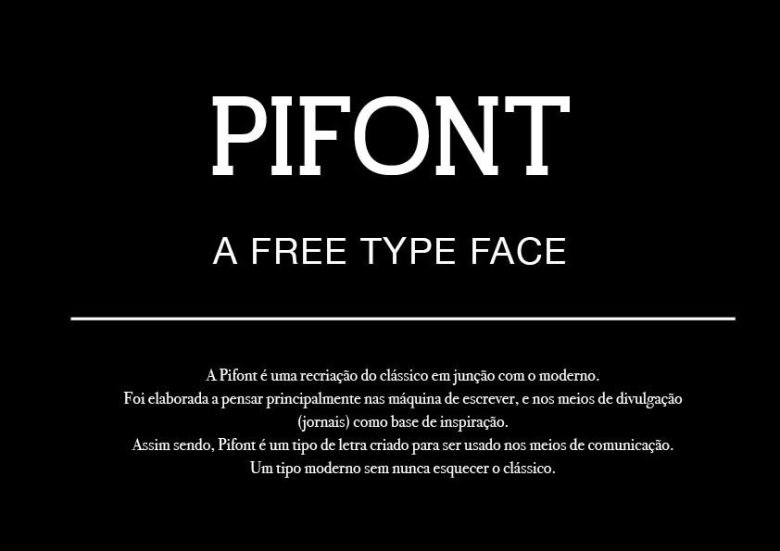
Pifont Font
Pifont typeface is a clean and minimal display slab serif font for a beautiful headlines. It is great for poster and any display purposes.